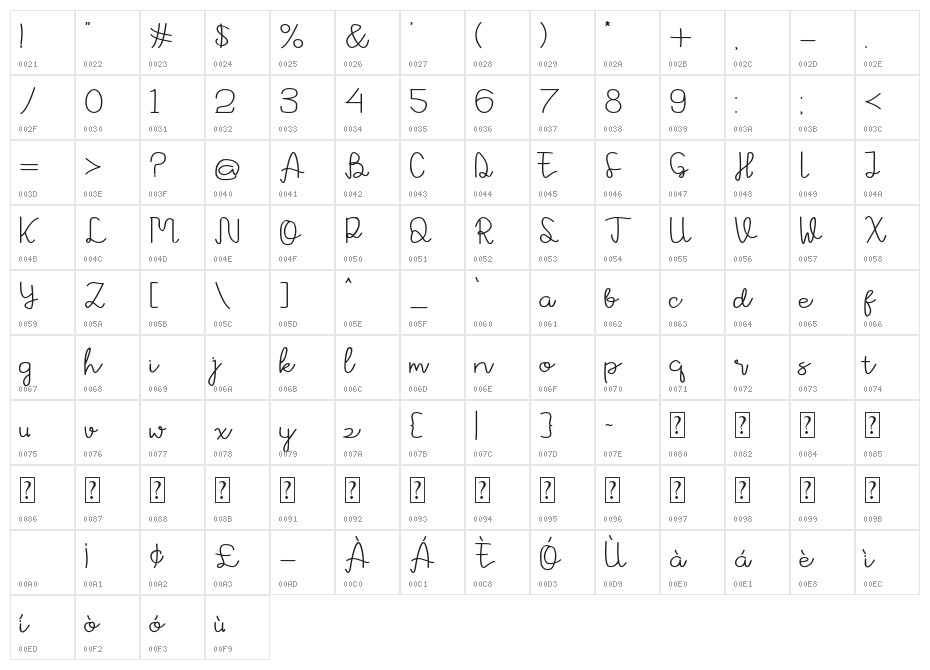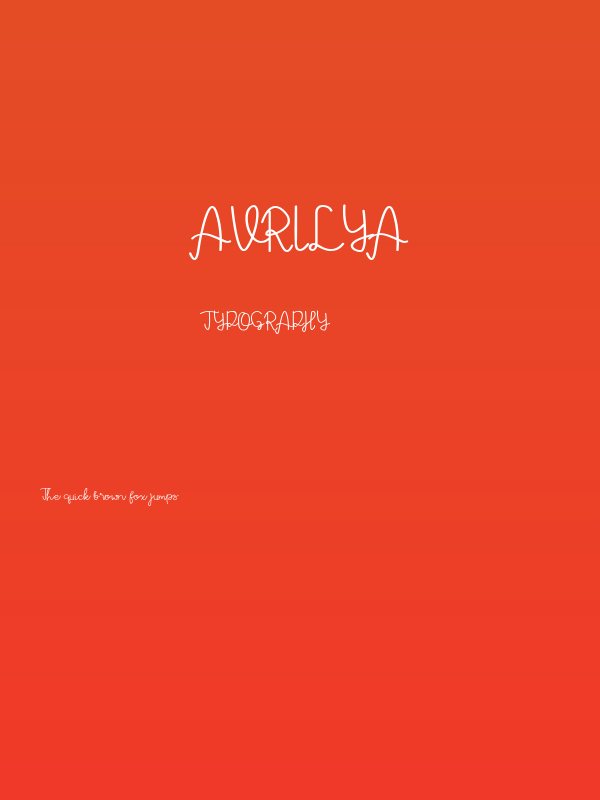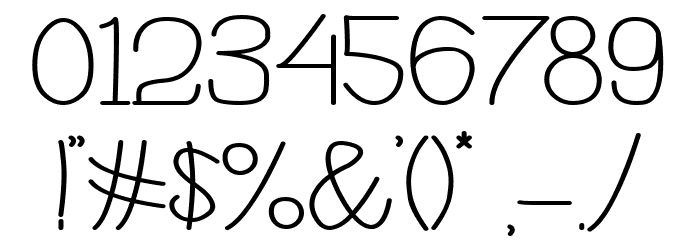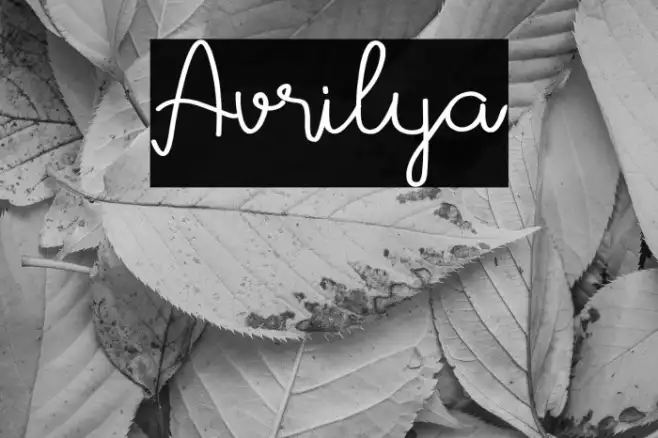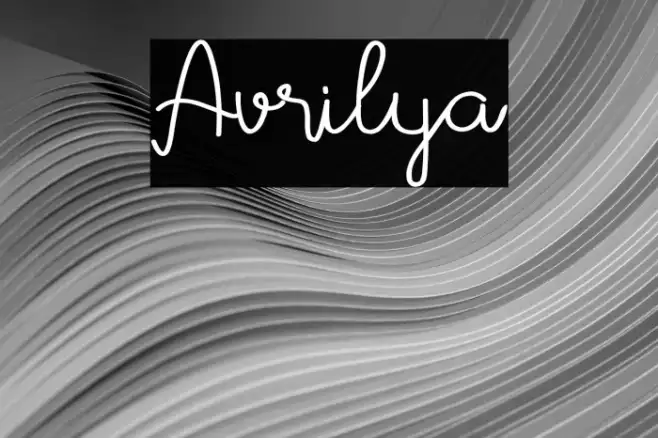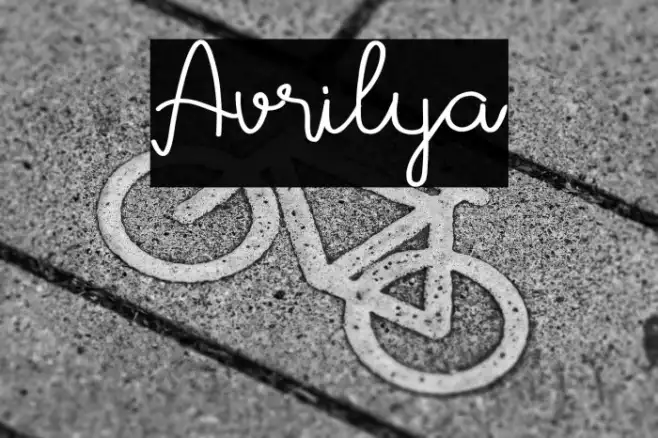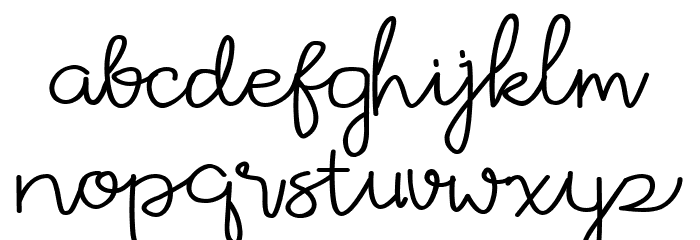
Avrilya Font
Avrilya Description
This font features a playful and whimsical handwritten style, characterized by its fluid and continuous strokes. The letters are interconnected, creating a sense of movement and flow. The uppercase letters are tall and slightly narrow, while the lowercase letters maintain a consistent height, contributing to a harmonious appearance. The numbers and special characters are crafted with the same playful touch, ensuring a cohesive look across all elements. This font's unique style makes it stand out, offering a blend of elegance and casual charm.
| Proposed Projects | Ideal for greeting cards, invitations, personal branding, and creative projects that require a touch of whimsy. |